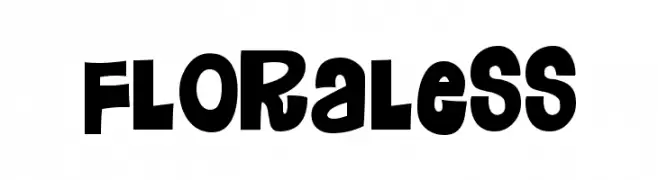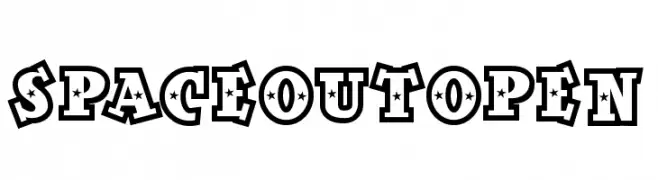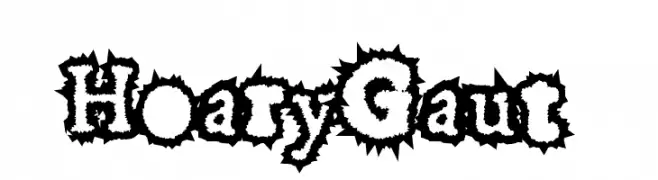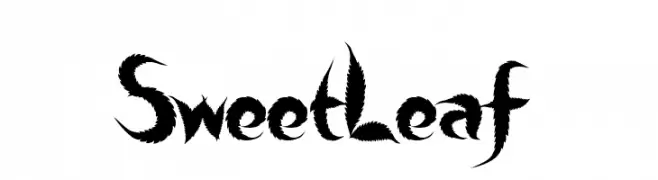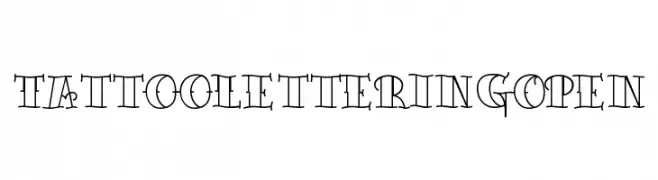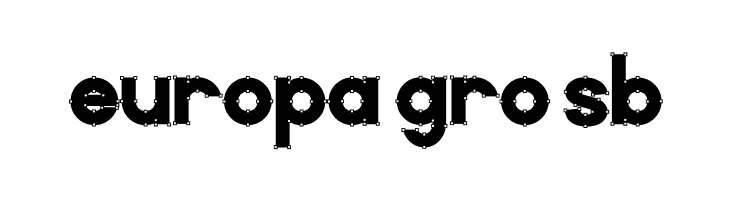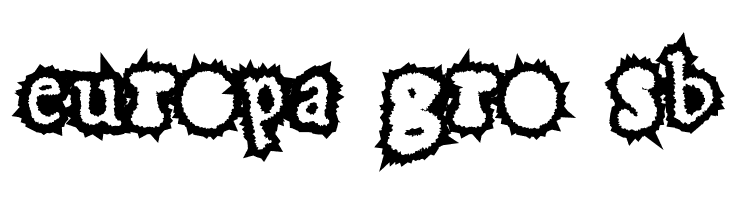
( Fonts by Daniel Gauthier )
A bold, geometric sans-serif font with uniform stroke widths and a modern look.
( Fonts by Daniel Gauthier )
A playful, bold font with exaggerated curves and a whimsical style.
( Fonts by Daniel Gauthier )
A bold decorative font with star-shaped cutouts and thick outlines, perfect for playful designs.
( Fonts by Daniel Gauthier )
A bold, jagged font with sharp, irregular edges for a dynamic look.
( Fonts by Daniel Gauthier )
A bold, jagged font with a dynamic, shredded appearance.
( Fonts by Daniel Gauthier )
A bold, fragmented font with a dynamic, distressed style.
( Fonts by Daniel Gauthier )
A bold, nature-inspired font with leaf-like characters and sharp, jagged strokes.
( Fonts by Daniel Gauthier )
A bold, playful font with jagged, hand-drawn edges and a cartoonish style.
( Fonts by Daniel Gauthier )
An artistic and ornate font inspired by traditional tattoo lettering, featuring intricate lines and curves.